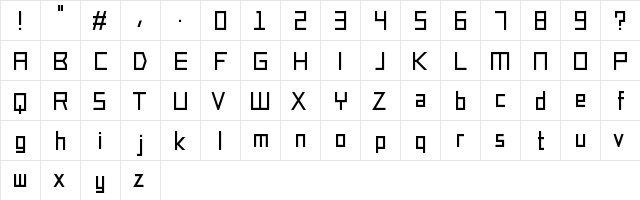
Squarified normal
Design Context for Squarified Typeface
Squarified is a composed and adaptable typeface that performs quietly and consistently across a wide range of design contexts.